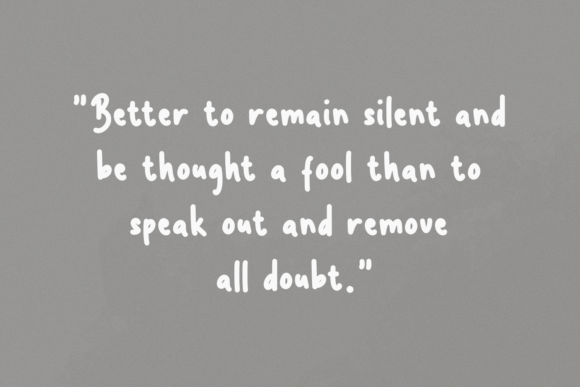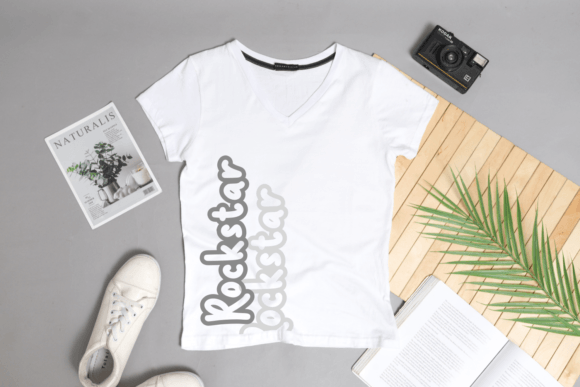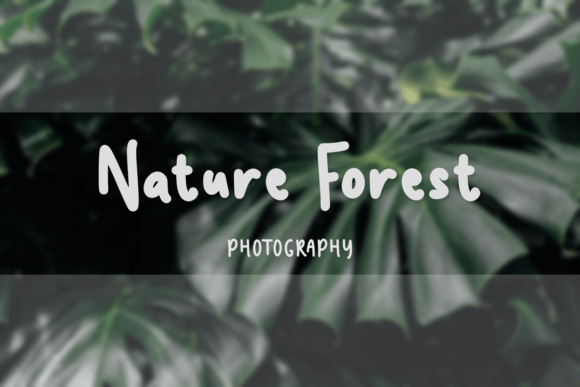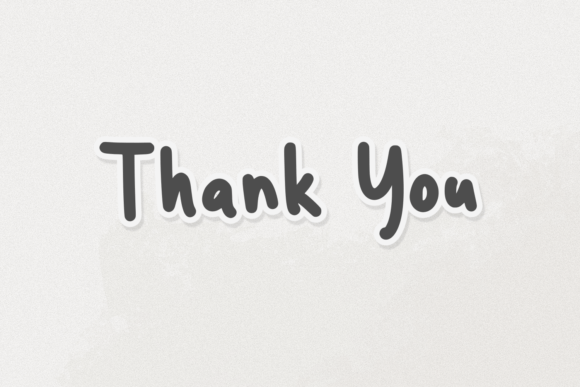
Unlock the Power of Handwritten Charm with Benih Cinta Font
You know that moment when you’re brainstorming ideas for a new project and suddenly, a spark of creativity strikes? The words flow effortlessly, and the design starts to come together in your mind’s eye. For designers, this is what it’s all about – bringing ideas to life and making them visually stunning.
Enter Benih Cinta Font, a natural handwritten sans serif font that’s about to revolutionize your designs. This beautiful font is perfect for adding a touch of warmth and personality to your logos, labels, branding, invitations, websites, quotes, and more. With Benih Cinta Font, you’ll be able to create designs that truly stand out from the crowd and leave a lasting impression.
Benih Cinta Font Key Features
- Unique Character Set: Includes a wide range of characters, including Latin, Cyrillic, and extended characters, making it suitable for various languages and designs.
- Unique Characteristics: Features a hand-drawn design with a touch of elegance, making it perfect for creating a romantic and whimsical atmosphere.
Designer Review: Benih Cinta Font
Overall, I was quite impressed with the Benih Cinta Font. It’s a beautiful and unique script font that’s perfect for adding a touch of elegance to any design project. ✨ The font’s organic feel and subtle imperfections give it a handmade quality that’s hard to find in digital fonts.
One of the things I love about Benih Cinta is its versatility. It’s suitable for a wide range of applications, from wedding invitations to branding and packaging. ✨ The font’s flowing lines and curves make it a great choice for designers who want to add a sense of movement and energy to their designs.
- Unique and elegant design
- Perfect for adding a touch of handmade quality to designs
- Versatile and suitable for a wide range of applications
- Some characters may be difficult to read at small font sizes ⚠️
- The font may not be suitable for designs that require a lot of fine detail ⚠️
Overall, I would highly recommend the Benih Cinta Font to designers who want to add a touch of elegance and sophistication to their projects. With its unique design and versatility, it’s a great addition to any design library.
Benih Cinta Font is a beautiful script font that works well for romantic and whimsical designs.
Benih Cinta Font can add a touch of elegance and sophistication to your designs.
Benih Cinta Font is a versatile font that works well for presentations, reports, and other documents.
Tips for Getting the Most Out of Benih Cinta Font
Here are some tips for using Benih Cinta Font effectively:
- Use Benih Cinta Font sparingly to avoid overwhelming the design.
- Pair Benih Cinta Font with other elegant fonts for a cohesive look.
Alternatives to Benih Cinta Font for Designers
Great Vibes is a modern script font that is perfect for creating a romantic and elegant look. It’s ideal for wedding invitations, baby shower invitations, and other special occasions. Great Vibes is more refined and polished compared to Benih Cinta Font, making it a great choice for designers who want to add a touch of sophistication to their designs.
Carolyna Pro is a elegant script font that is perfect for creating a luxurious and high-end look. It’s ideal for branding, packaging, and advertising materials. Carolyna Pro is more versatile and has a wider range of uses compared to Benih Cinta Font, making it a great choice for designers who want to add a touch of luxury to their designs.
Alex Brush is a elegant script font that is perfect for creating a romantic and whimsical look. It’s ideal for wedding invitations, greeting cards, and other special occasions. Alex Brush is more delicate and intricate compared to Benih Cinta Font, making it a great choice for designers who want to add a touch of elegance to their designs.